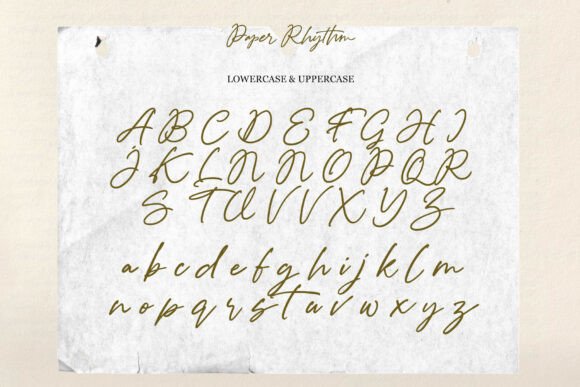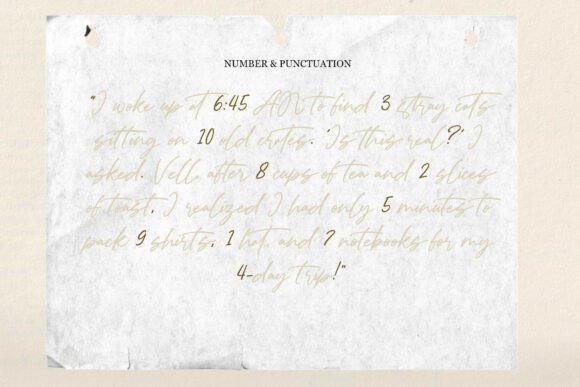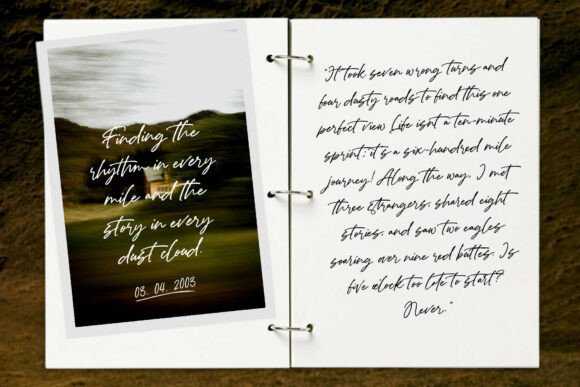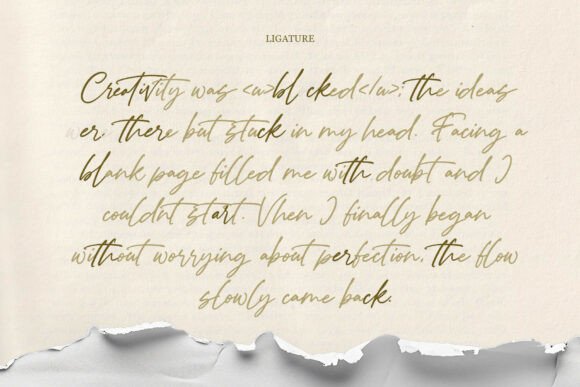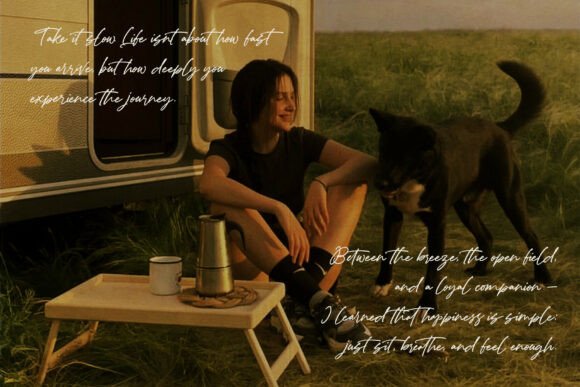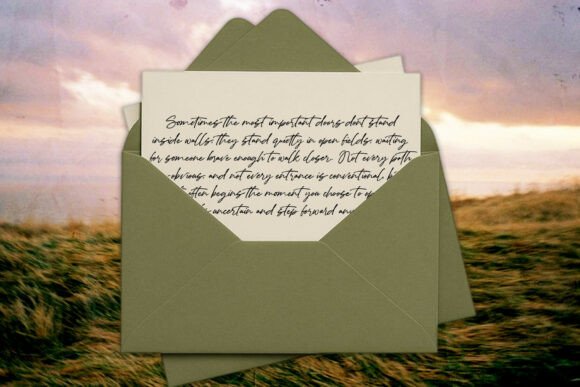
Introduction to Paper Rhythm Font
Have you ever felt the joy of putting pen to paper, watching your thoughts flow onto the page in a stream of consciousness? For many creatives, this moment of connection with paper and pen is a source of inspiration and calm. The Paper Rhythm Font is a beautiful reflection of this experience, capturing the essence of slow living, personal journaling, and the quiet beauty of everyday moments.
As a designer, finding the perfect font can be a game-changer for your project. With its elegant yet relaxed strokes, the Paper Rhythm Font offers a high-quality design resource that’s perfect for branding, editorial layouts, and more. Whether you’re working on a creative project or simply need a beautiful font for your social media graphics, this free download is sure to impress.
With its transparent background and natural pen flow, the Paper Rhythm Font brings a calm, poetic atmosphere to any design. Its expressive strokes and authentic handwritten look make every sentence feel personal and sincere, making it a valuable addition to any designer’s toolkit.
Key Features of Paper Rhythm Font
- Unique, hand-drawn design with a natural, organic feel, perfect for creative projects and designs requiring a personal touch.
- Comes with a transparent background, allowing for seamless integration into various design elements and backgrounds.
- Designed to be highly legible and readable, with a clear and crisp appearance at various font sizes and resolutions.
- Part of a larger collection of unique, hand-crafted fonts, offering endless possibilities for creative expression and design experimentation.
- Includes a comprehensive character set, covering a wide range of languages and characters, making it suitable for diverse design projects and applications.
Honest Review: Paper Rhythm Font
As a designer, I’m always on the lookout for high-quality fonts that can elevate my creative projects. Recently, I had the chance to try out the Paper Rhythm Font, and I’m excited to share my honest review with you.
- Unique and creative design: The Paper Rhythm Font has a distinct, hand-drawn feel that adds a touch of personality to any project.
- High-quality glyphs: The font includes a wide range of glyphs, from letters and numbers to symbols and punctuation marks.
- Limited font styles: The Paper Rhythm Font only comes in one style, which may not be suitable for projects that require multiple font variations.
- No transparent background: The font doesn’t include a transparent background option, which may limit its use in certain design scenarios.
Overall, I’m impressed with the Paper Rhythm Font’s unique design and high-quality glyphs. While it may have some limitations, it’s a great resource for designers working on creative projects. If you’re looking for a free, high-quality font to add some personality to your designs, the Paper Rhythm Font is definitely worth checking out.
Q: Does the Paper Rhythm Font have a transparent background?
Yes, the Paper Rhythm Font has a transparent background, making it ideal for use on creative projects with complex backgrounds or for designers who want to create unique and eye-catching designs.